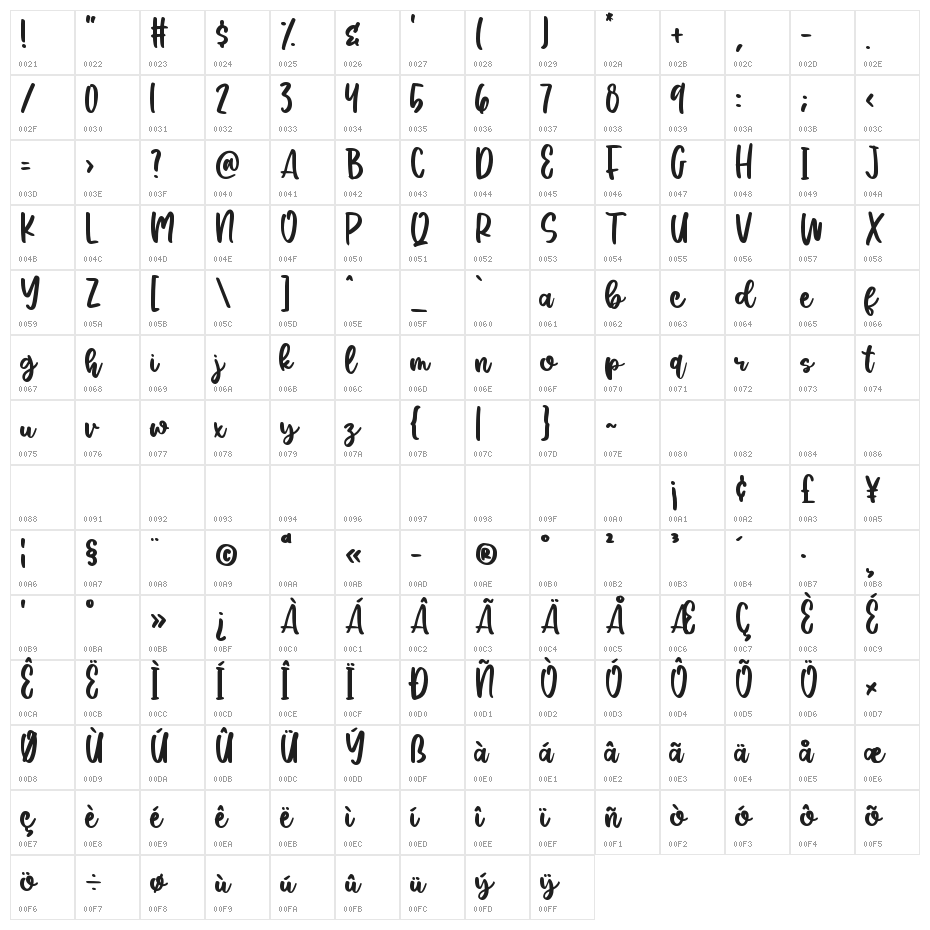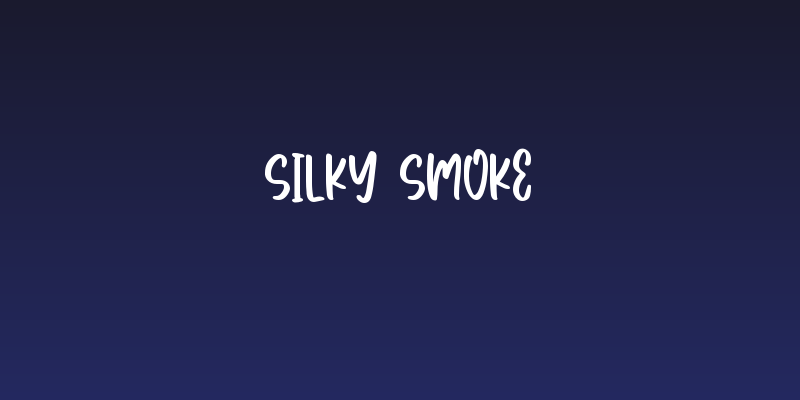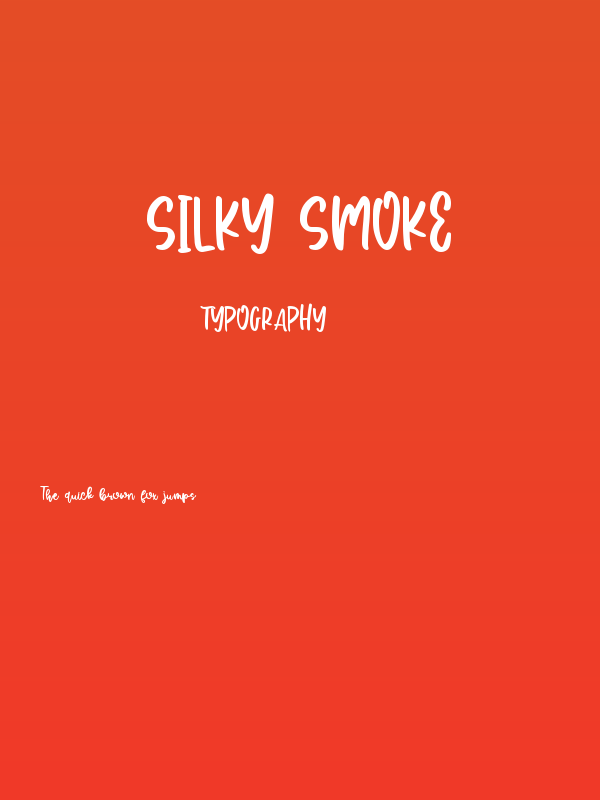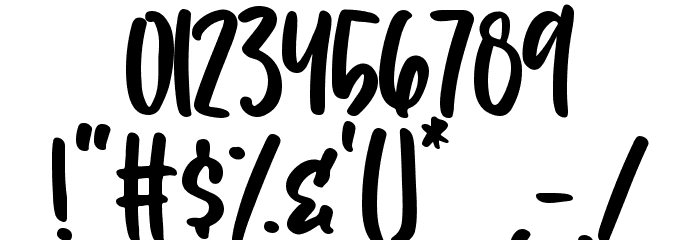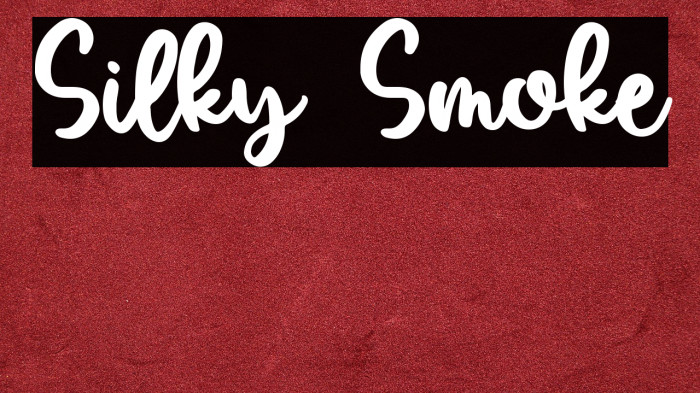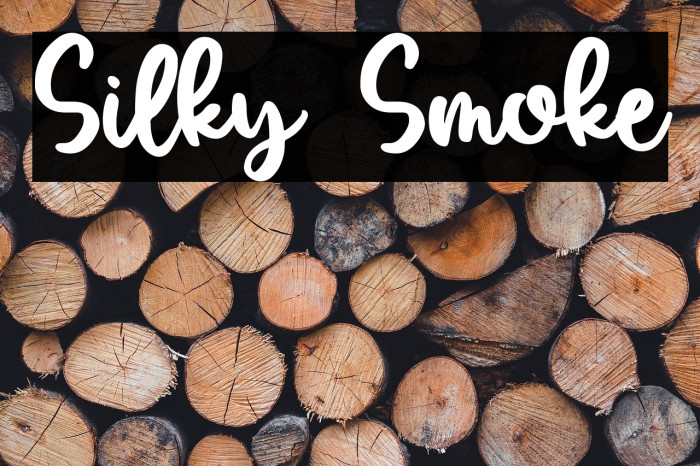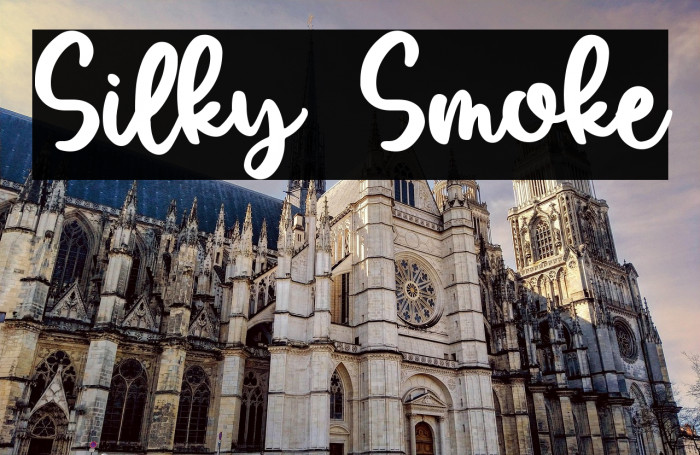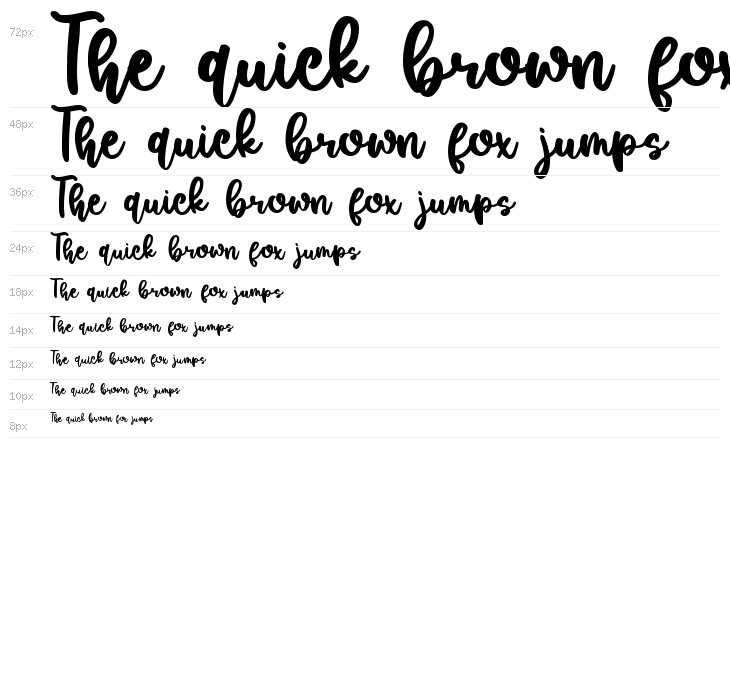
Silky Smoke Font
Silky Smoke Description
This font features a playful and energetic script style with a handwritten appearance. The letters are bold and slightly condensed, giving them a strong presence while maintaining a casual and approachable feel. The strokes are smooth and fluid, with a consistent thickness that adds to the font's readability. The uppercase letters are tall and commanding, while the lowercase letters have a charming, flowing quality. The numerals and special characters are designed to match the lively style of the alphabet, making this font versatile for various creative projects.